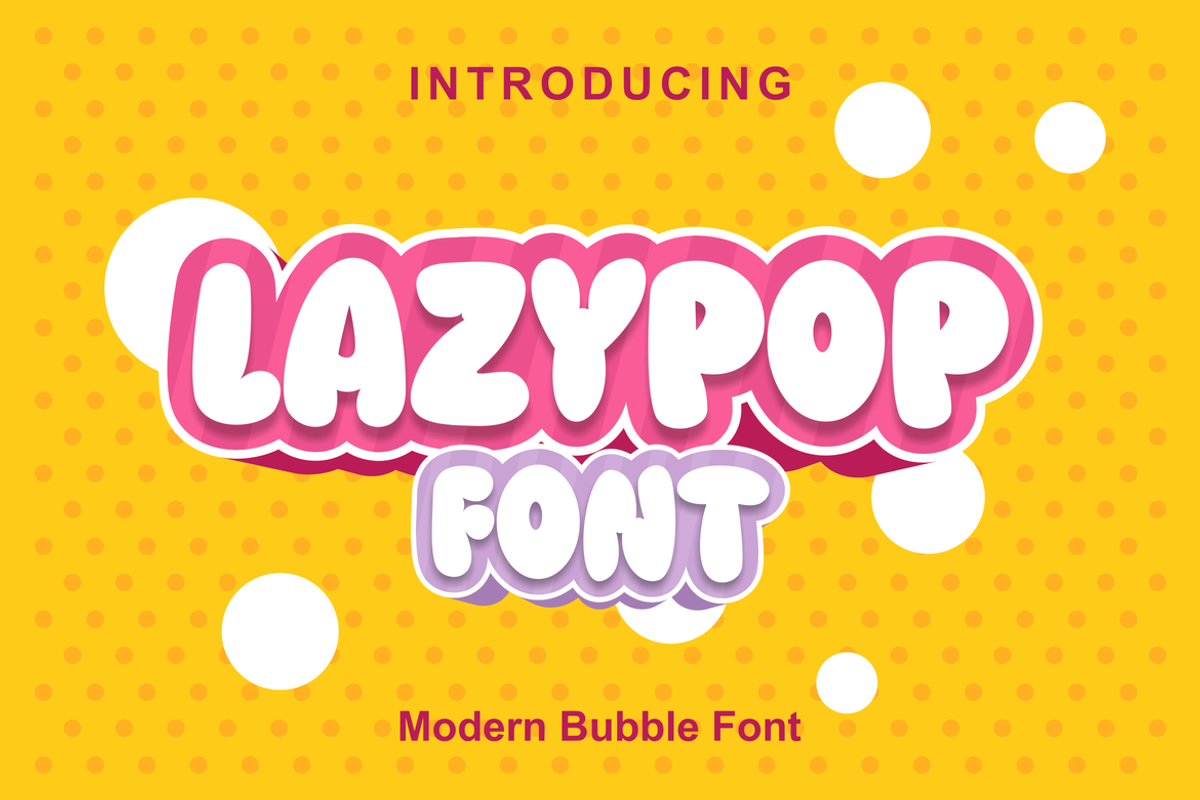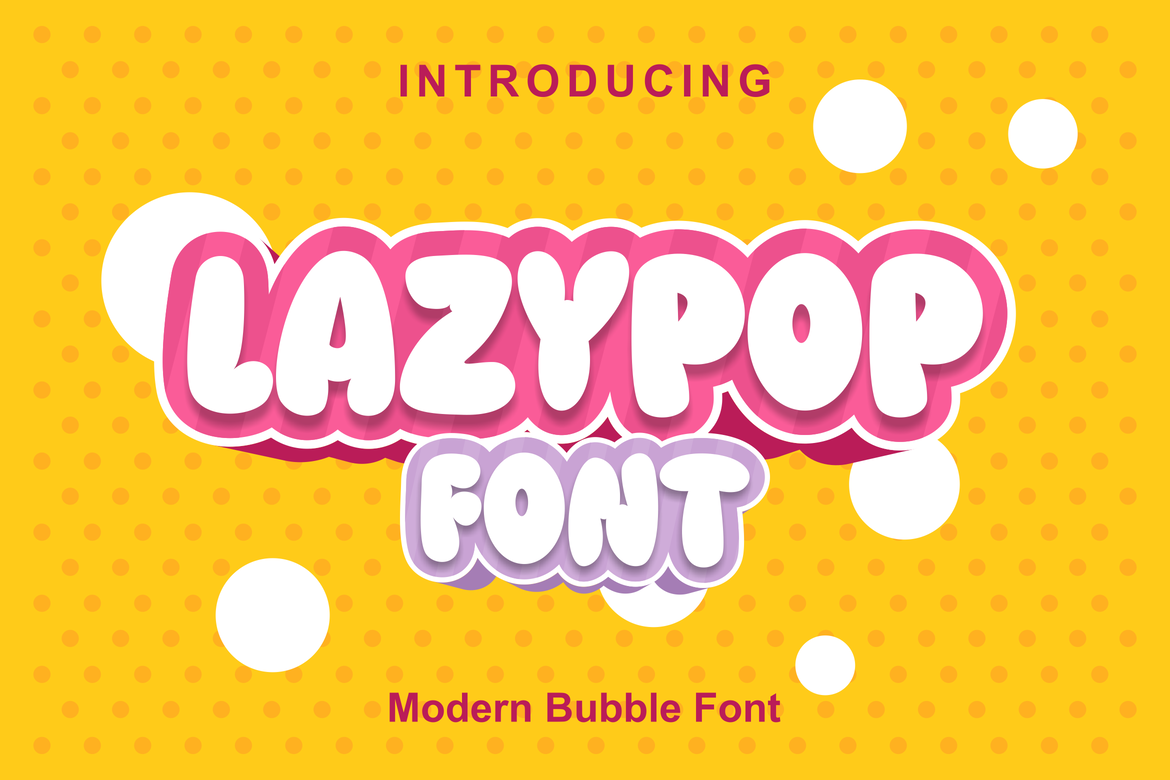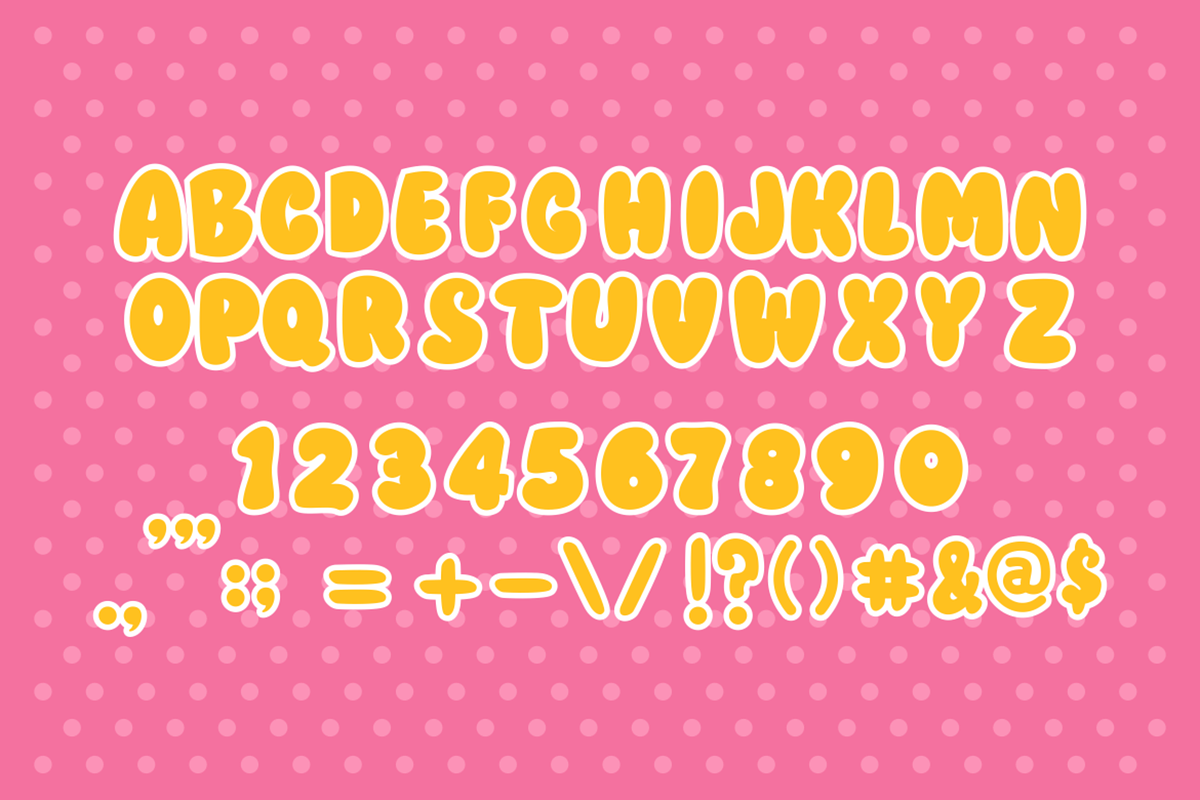
Lazypop Font
Introducing our new product Lazypop Font - Modern Font
Lazypop Font - Modern Font is a bold and authentic display font. The font is suitable for any branding project like logo, t-shirt printing, esport, and many more. outstanding in a wide range of contexts.